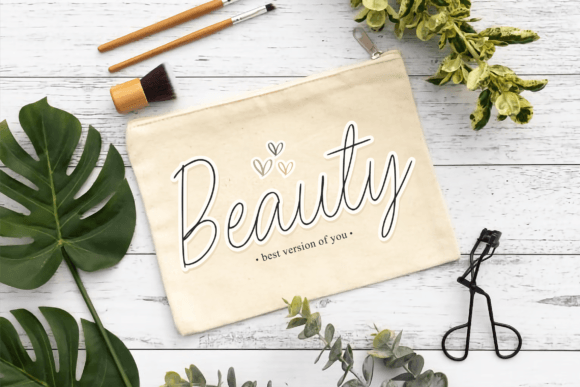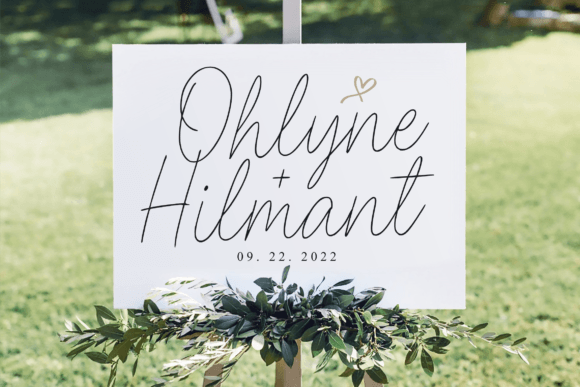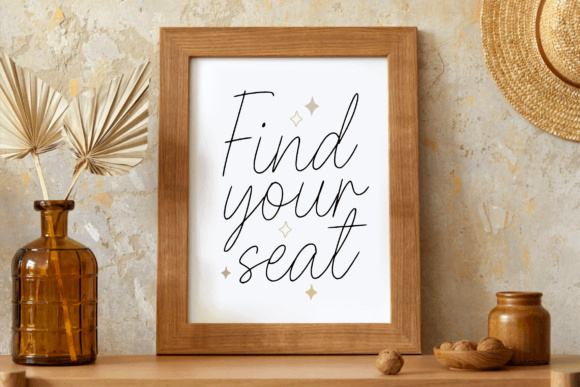
Introduction to Rumah Singgah Font
Rumah Singgah – Monoline Script Font Rumah Singgah is perfect for product packaging, branding project, magazines, social media, weddings, or just used to express words above the background.
Key Features of Rumah Singgah Font
Why Choose Rumah Singgah Font?
Rumah Singgah Font offers exceptional quality and versatility, making it a valuable addition to your design toolkit. Whether you’re creating for personal projects or commercial use, Rumah Singgah Font delivers professional results.